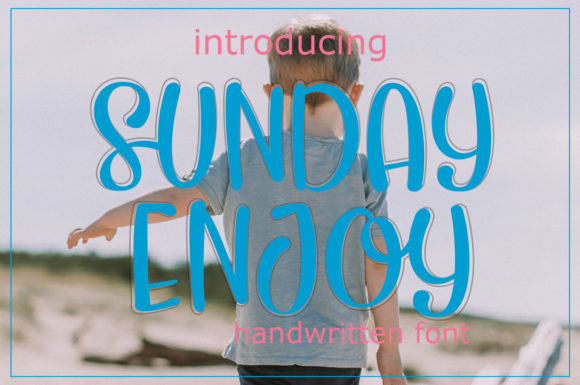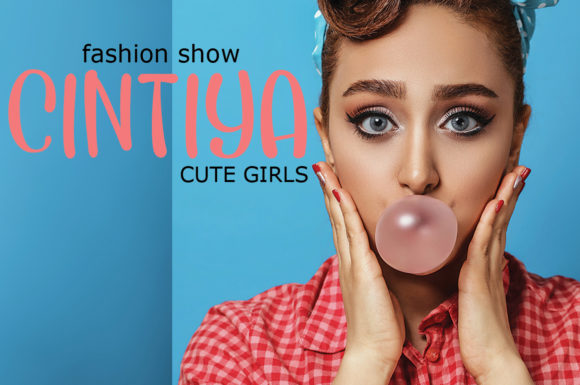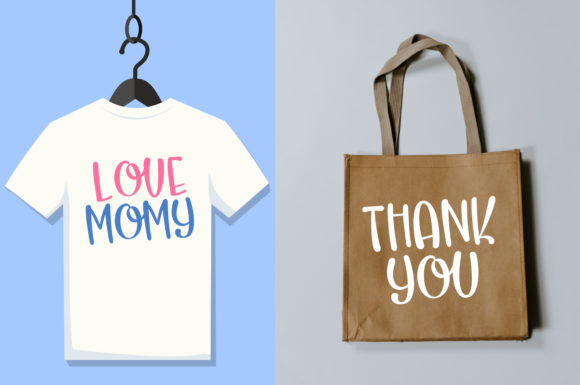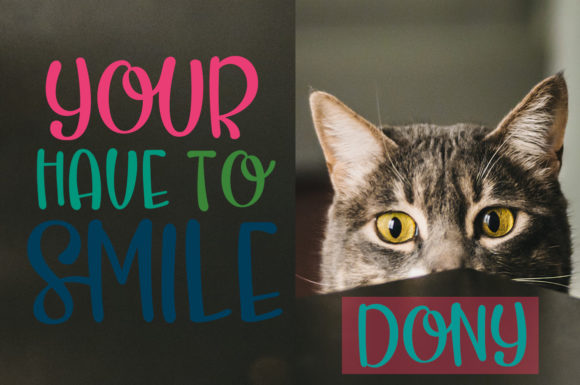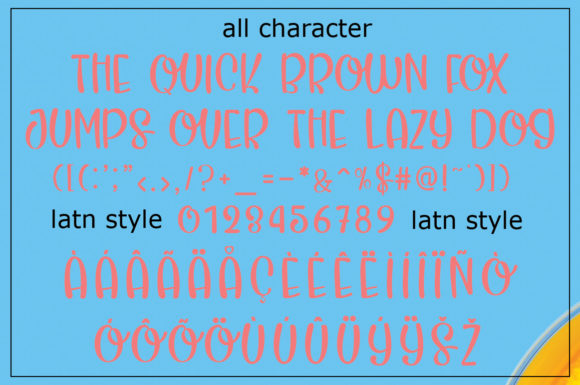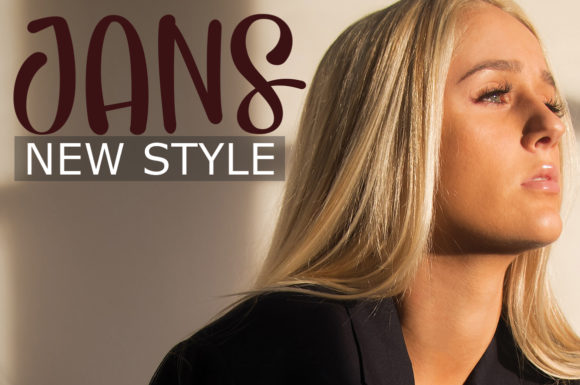
Sundayenjoy Font
About Sundayenjoy Font
Sundayenjoy is a cute and casual handwritten font with an incredibly friendly feel. Whether you’re looking for fonts for Instagram or calligraphy scripts for DIY projects, this font will turn any creative idea into a true piece of art!